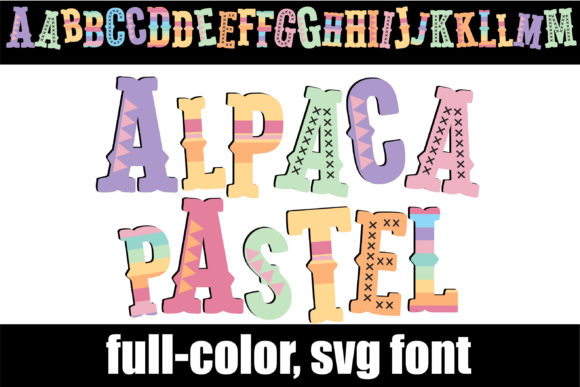
Introducing the Alpaca Pastel Font, the ultimate font for sweater design! Created by Illustration Ink, this font is not just colorful, it's a work of art that will elevate your designs to new heights. With its pastel color palette and toggled serif lettering, this font is perfect for adding a touch of whimsy and charm to any project.
But that's not all - the Alpaca Pastel Font goes above and beyond with its unique features. Each upper and lowercase letter has a second version, which can be accessed through your alt cases or your system's character map. This means you have even more creative freedom to experiment and create stunning designs that stand out from the crowd.